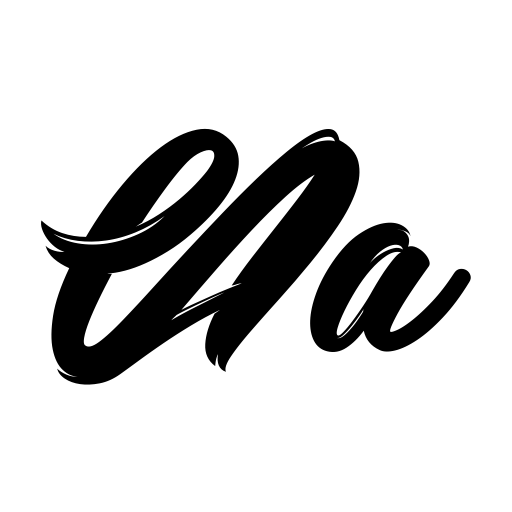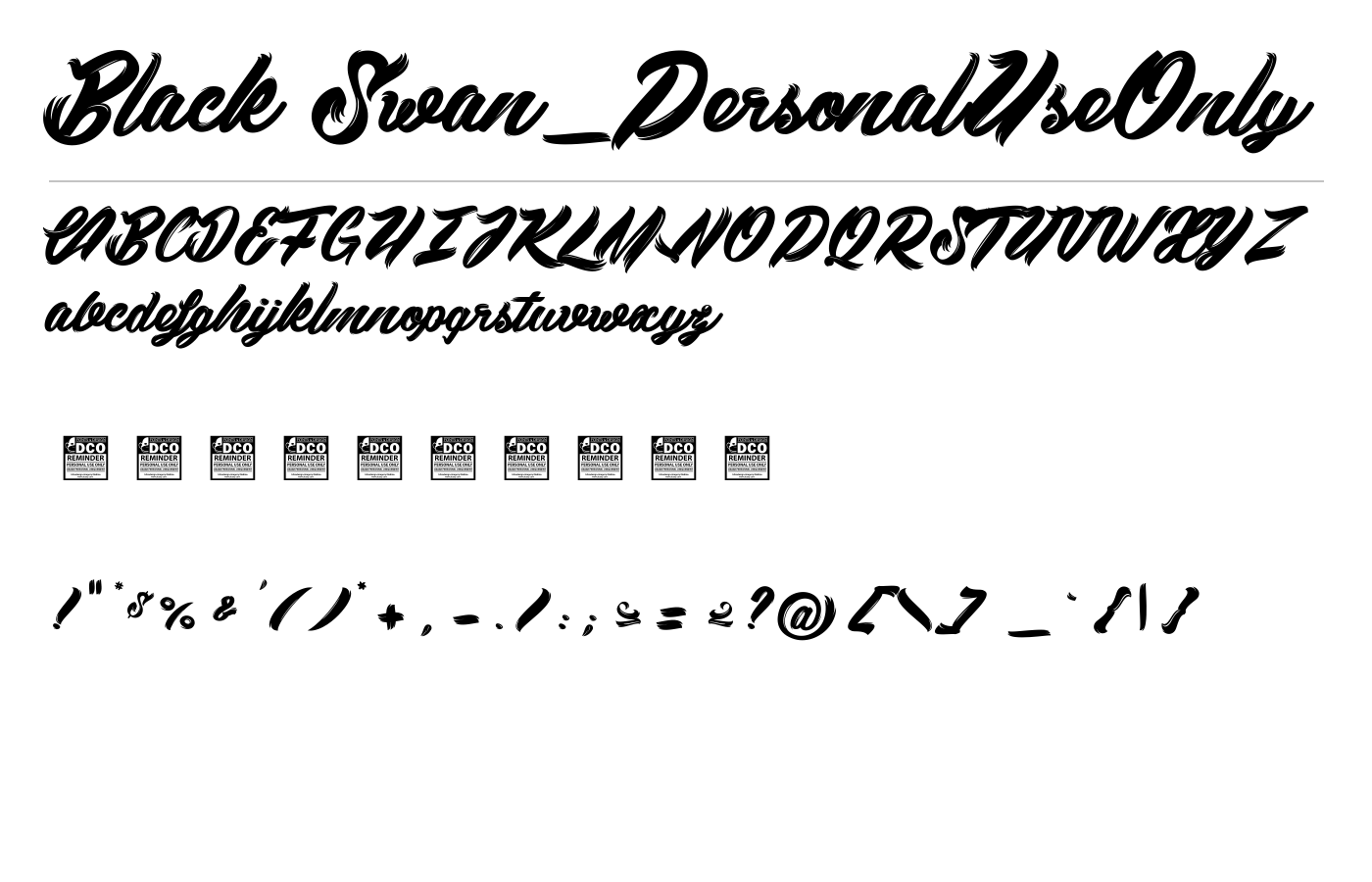
Black Swan_PersonalUseOnly is a bold, script font with a lively and expressive character, featuring thick, brush-like strokes and high contrast that give it a dynamic, flowing appearance. Its letterforms are highly stylized and elegant, making it ideal for eye-catching headlines, logos, or branding that seeks a creative and sophisticated flair. This font works well in fashion, luxury, and artistic contexts where personality and visual impact are key.
Black Swan_PersonalUseOnly Font
About Black Swan_PersonalUseOnly Font
| Font family | Black Swan_PersonalUseOnly Font |
| Designer | Gregory Medina ©dcodesign |